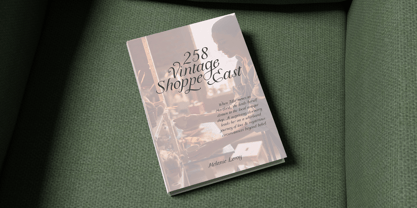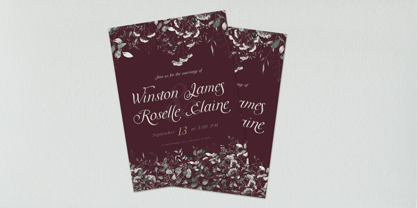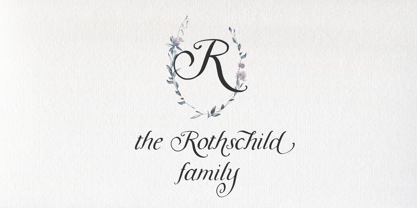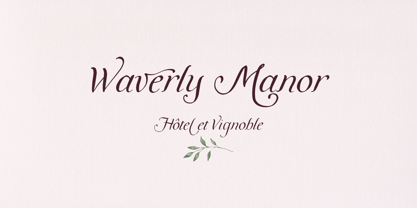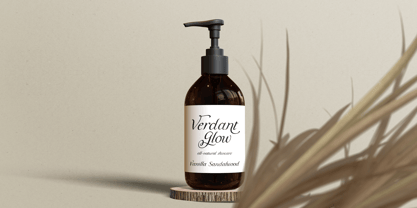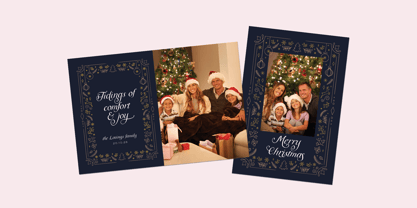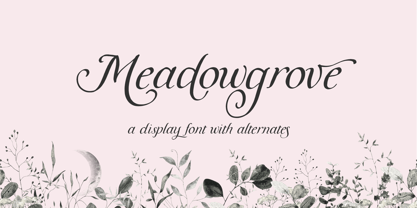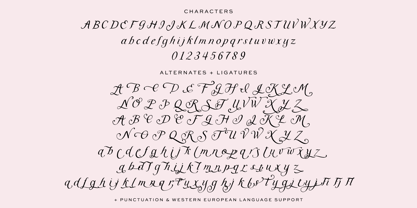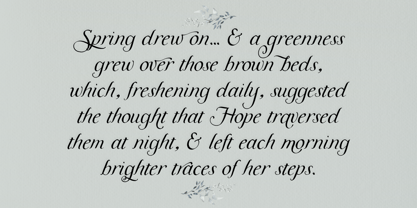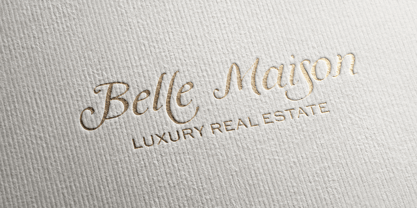
Meadowgrove Display
Meet Meadowgrove, an elegant hand lettered display font with an inky, perfectly imperfect edge.
Meadowgrove is a legible calligraphy font packed full of alternate characters to customize your text easily. Effortlessly design logos & branding, beautiful paper products like wedding invitation suites, or for display content on your website. Meadowgrove can also be used for other print design like magazines and flyers, book covers, or printed marketing materials. This font can also be used for digital marketing materials and social media items!
Meadowgrove includes:
- full upper + lowercase characters
- numbers + punctuation
- 54 alternate uppercase characters
- 80 alternate lowercase characters
- 3 ligatures - Fi, Fj, Fl
- Western European language support - English, French, Spanish, Portuguese (Brazil), Portuguese (Portugal), Italian, German (Germany), German (Austria), Dutch, Danish, Swedish, Norwegian (Bokmål and Nynorsk), Finnish, Icelandic, Irish, Welsh